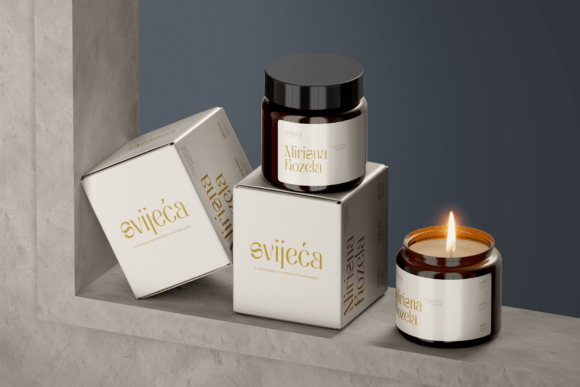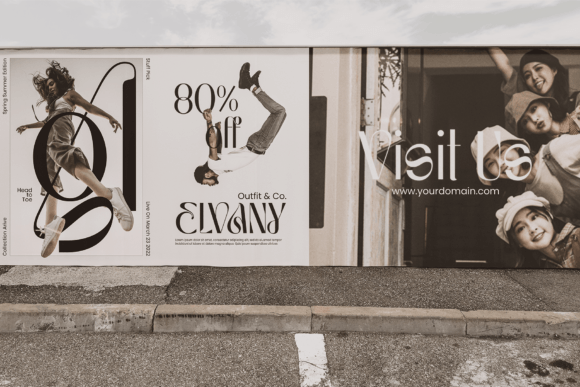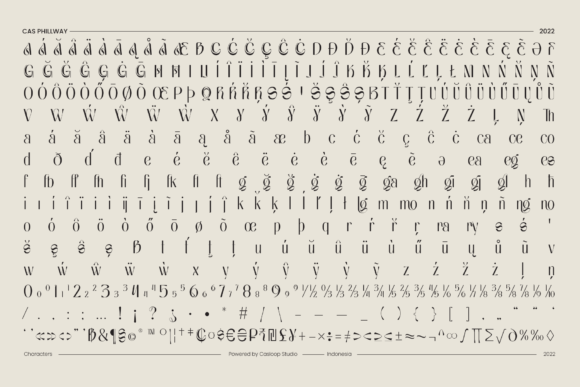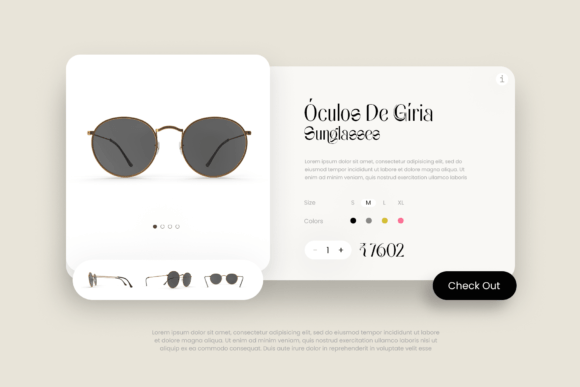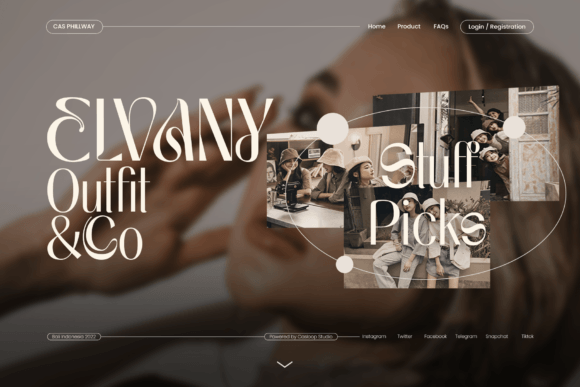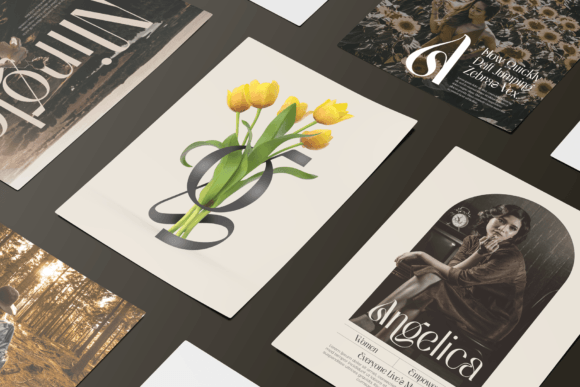
Cas Philway Font: Elevate Your Design with Effortless Beauty
In the world of typography, a well-crafted font can make all the difference in elevating your design to new heights. Cas Philway Font is a stunning display typeface that embodies the perfect blend of aesthetic letterforms, legibility, and readability. This beautiful font is designed to provide an effortless beauty that will leave a lasting impression on your audience.
The Design Philosophy Behind Cas Philway Font
Cas Philway Font is an implementation of effortless beauty, where every character is carefully crafted with high contrast in each shape. This attention to detail results in a font that exudes elegance and sophistication. The designers of Cas Philway Font have struck a perfect balance between style and legibility, making it an ideal choice for designers and crafters looking to add a touch of luxury to their work.
Key Features of Cas Philway Font
Cas Philway Font comes with a range of features that make it a versatile and valuable addition to any designer’s toolkit. Some of the key features include:
- High Contrast Characters: Each character in Cas Philway Font is designed with high contrast in each shape, resulting in a beautiful and elegant appearance.
- Stylistic Sets: The font comes with additional stylistic sets that provide other options for variation, allowing you to extend the scope of your design.
- Ligatures and Multi-Language Support: Cas Philway Font includes ligatures and multi-language support, making it a great choice for designers working on international projects.
- Harmonious Proportions: The proportions of figures and symbols in Cas Philway Font are in harmony with the basic letters, creating a cohesive and visually appealing design.
Why Choose Cas Philway Font?
So, why should you choose Cas Philway Font for your next design project? Here are just a few reasons:
- Effortless Beauty: Cas Philway Font embodies effortless beauty, making it perfect for designers looking to add a touch of elegance to their work.
- Legibility and Readability: The font is designed with legibility and readability in mind, ensuring that your message is communicated clearly and effectively.
- Versatility: With its range of features, including stylistic sets, ligatures, and multi-language support, Cas Philway Font is a versatile font that can be used in a variety of design applications.
Design Applications for Cas Philway Font
Cas Philway Font is a versatile font that can be used in a range of design applications, including:
- Branding and Logo Design: The elegant and sophisticated appearance of Cas Philway Font makes it perfect for branding and logo design.
- Print Design: The font is ideal for print design, including business cards, brochures, and posters.
- Digital Design: Cas Philway Font can be used in digital design, including website headers, social media graphics, and email marketing campaigns.
| Font Name | Cas Philway Font |
| Author | Casloop |
In conclusion, Cas Philway Font is a stunning display typeface that embodies effortless beauty, legibility, and readability. With its range of features, including stylistic sets, ligatures, and multi-language support, this font is perfect for designers and crafters looking to elevate their design to new heights. Whether you’re working on a branding project, print design, or digital design, Cas Philway Font is a great choice for adding a touch of elegance and sophistication to your work.